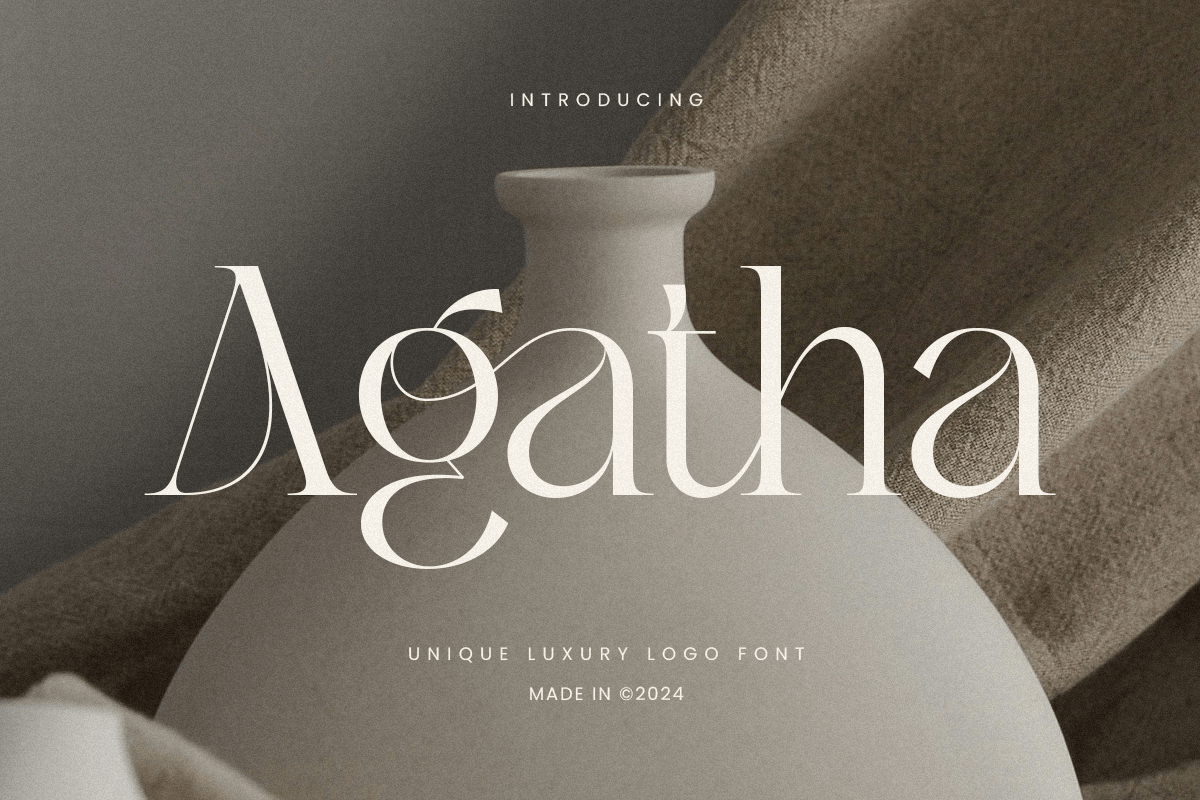
Agatha
-Unique Luxury Logo FontAgatha is a unique luxury logo font crafted to bring sophistication and elegance to high-end branding projects. Its distinct character shapes and refined strokes create an aura of timeless luxury, making it perfect for fashion labels, luxury brands, and premium design projects. Agatha offers a balance of classic beauty and modern appeal, ensuring your logos and titles stand out with undeniable charm.
Designed to capture attention with its exquisite details, Agatha enhances any project by adding a touch of exclusivity and style. Whether used in logos, invitations, or magazine layouts, its sleek letterforms convey luxury without being overly ornate. The versatility of this font ensures it can elevate both minimalist designs and elaborate layouts alike. From luxury branding to stylish advertising, Agatha provides the perfect solution for designers seeking a font that embodies grace, exclusivity, and timeless sophistication.
Agatha Unique Luxury Logo Font Features:
Unique Ligature & Alternative Characters Ready